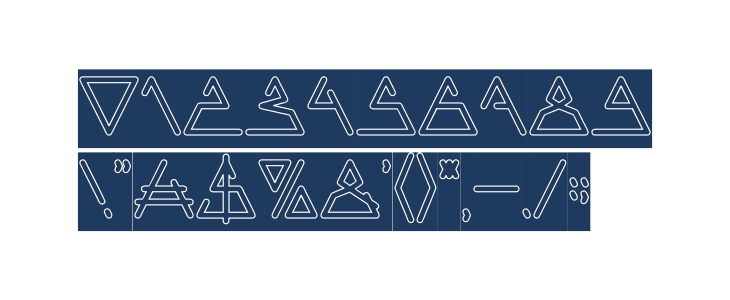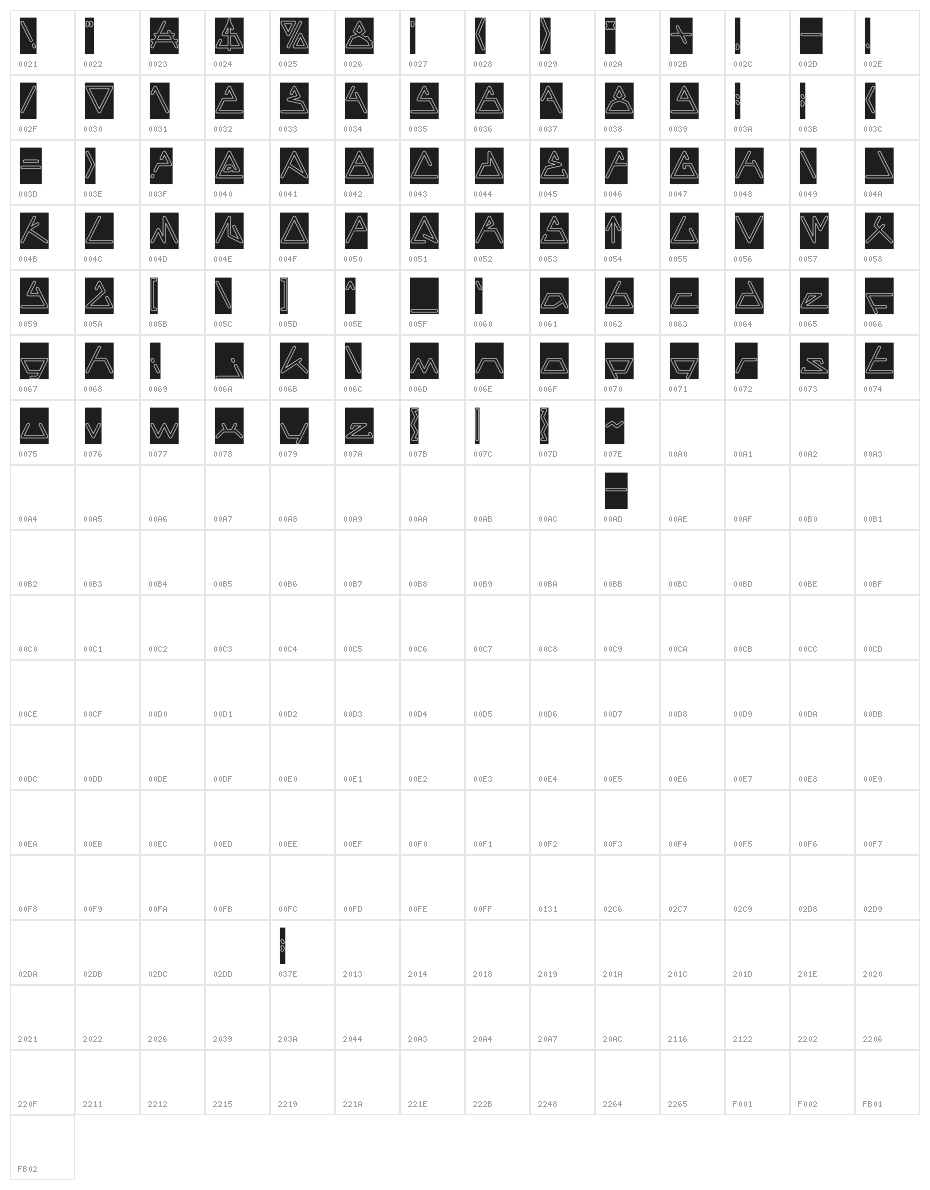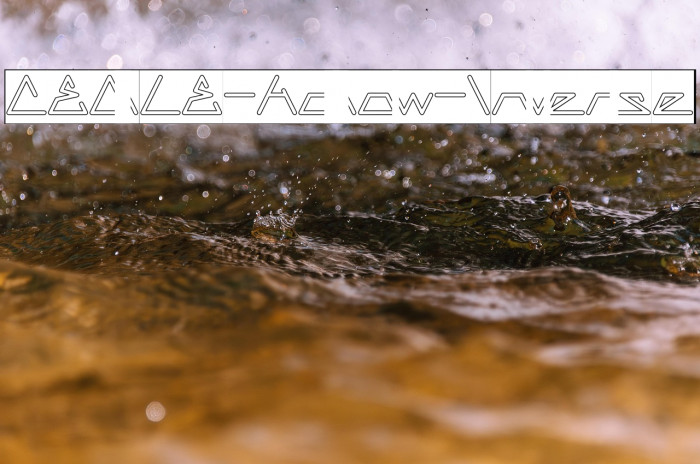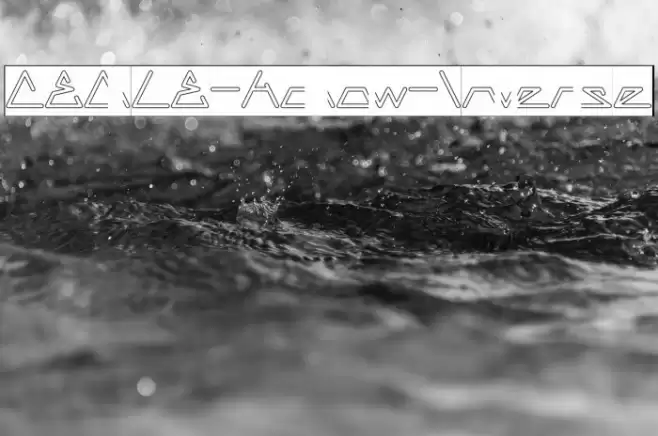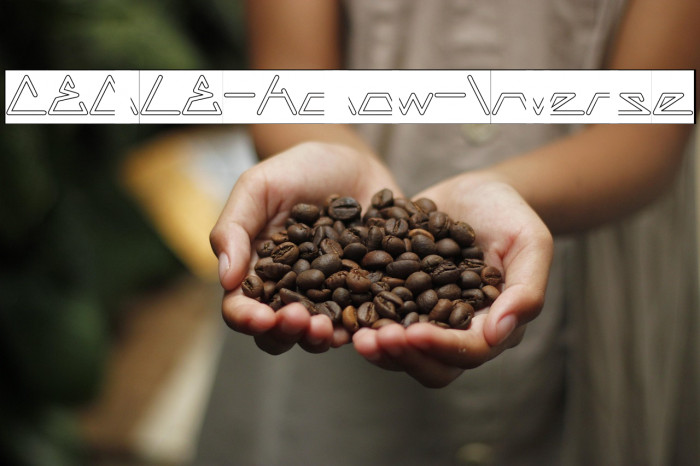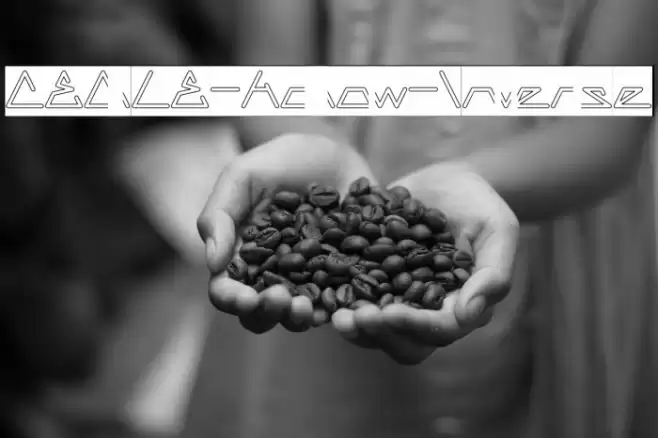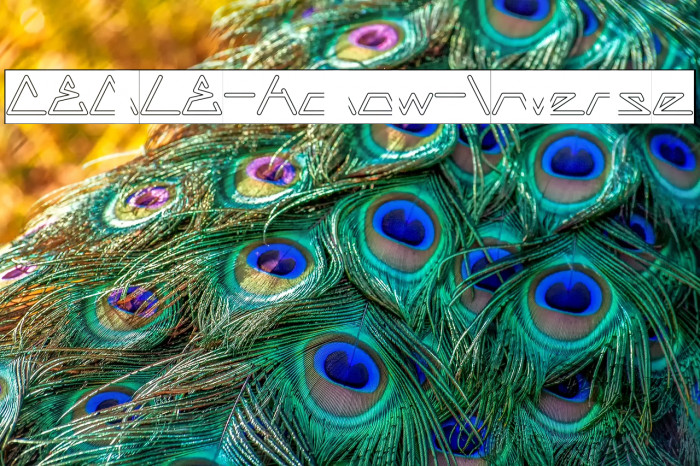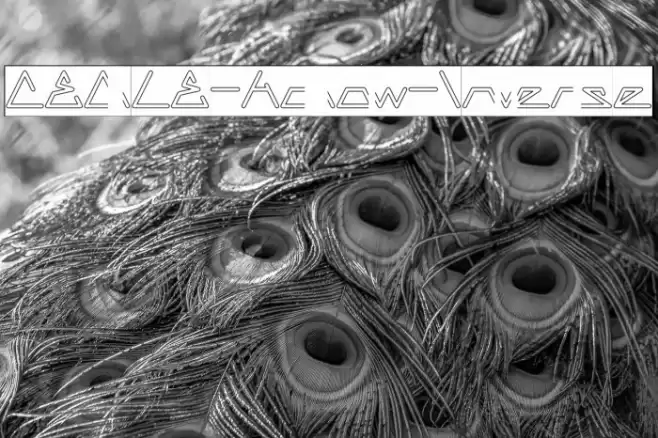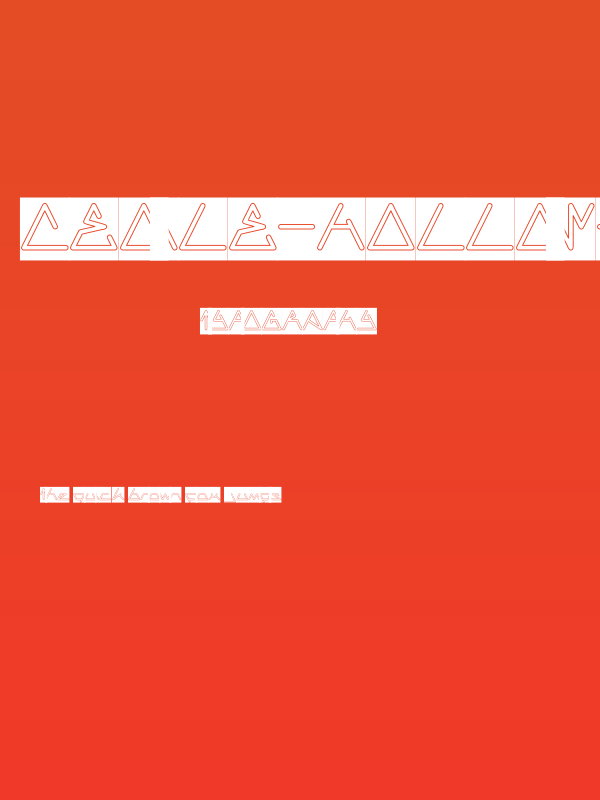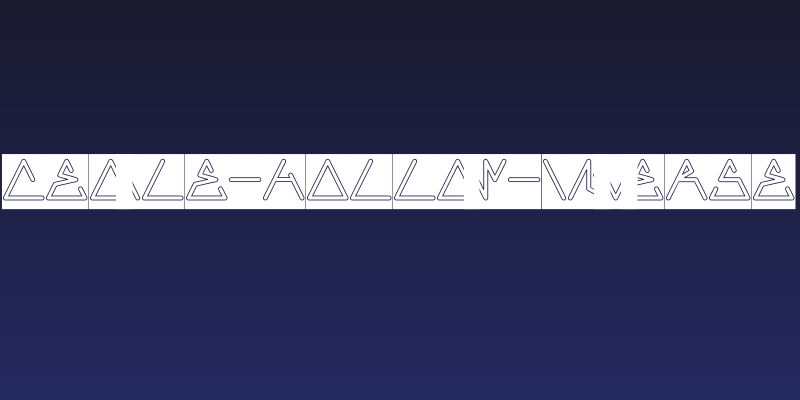
CECILE-Hollow-Inverse Font
CECILE-Hollow-Inverse Description
This font features a unique hollow design with an inverse style, creating a striking visual effect. The characters are composed of thin, continuous lines that form geometric shapes, giving it a futuristic and modern appearance. The uppercase and lowercase letters maintain a consistent style, with angular and sharp edges that enhance its distinctiveness. Numbers and special characters follow the same design principles, ensuring uniformity across the font. The hollow aspect allows for creative use of background colors or textures to shine through, making it ideal for eye-catching designs.